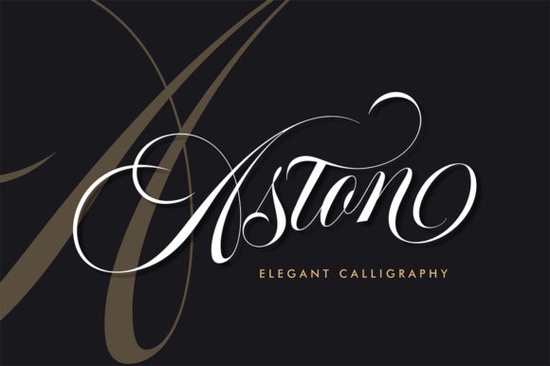
If you’re looking for a script font that feels both polished and personal, Aston Font might be exactly what your next project needs. It’s not overly ornate or hard to read just clean, modern calligraphy with enough character to stand out on invitations, logos, packaging, or social media graphics. Whether you run a small business, sell printables, or just love making things by hand, this font adapts without fuss.
What makes Aston work so well is how it balances elegance with everyday usability. The strokes feel intentional but relaxed like something you’d see on a boutique label or a wedding suite that doesn’t take itself too seriously. You don’t need to pair it with ten other fonts to make it shine. Sometimes, it’s the only one you’ll need.
Where does Aston Font actually look good?
Here’s where people are using it most:
- Branding – Think coffee shops, skincare lines, or handmade goods. A little script goes a long way in making your logo feel human.
- Invitations & stationery – Wedding suites, baby showers, holiday cards. It’s formal enough to feel special but casual enough to avoid looking stiff.
- Social media quotes – Overlay it on photos for Instagram posts or Pinterest pins. The flow works especially well with lifestyle or wellness content.
- Product labels – Soap, candles, jams, tea anything artisanal benefits from that hand-touched vibe.
- Signatures or watermarks – Add your name subtly to digital art or PDFs without looking corporate.
It’s also surprisingly legible at smaller sizes, which isn’t always true for script fonts. That means you can use it for subheadings or even short paragraphs if you space things out right.
How does it compare to other script fonts?
If you’ve used Biró Script, you know that one leans more dramatic and editorial. Aston is quieter better for projects that need warmth over wow. Love Island Duo gives you two styles in one pack, which is handy, but Aston holds its own with consistent rhythm and spacing. For a looser, artsy feel, Boho Style might suit rustic or festival themes better. And if you’re going for farmhouse charm, Father Farmhouse has that cozy texture Aston doesn’t try to replicate. Even Salty Ocean, with its beachy bounce, serves a totally different mood.
Bottom line: Aston isn’t trying to be everything. It’s focused refined, readable, and ready to slot into designs that need a touch of grace without drama.
Who should skip this font?
If your project needs bold impact like a poster headline or sports merch this isn’t your pick. Also, if you’re designing for very young audiences or need maximum readability (think wayfinding signs or instructional materials), go simpler. Aston shines when subtlety matters more than shouting.